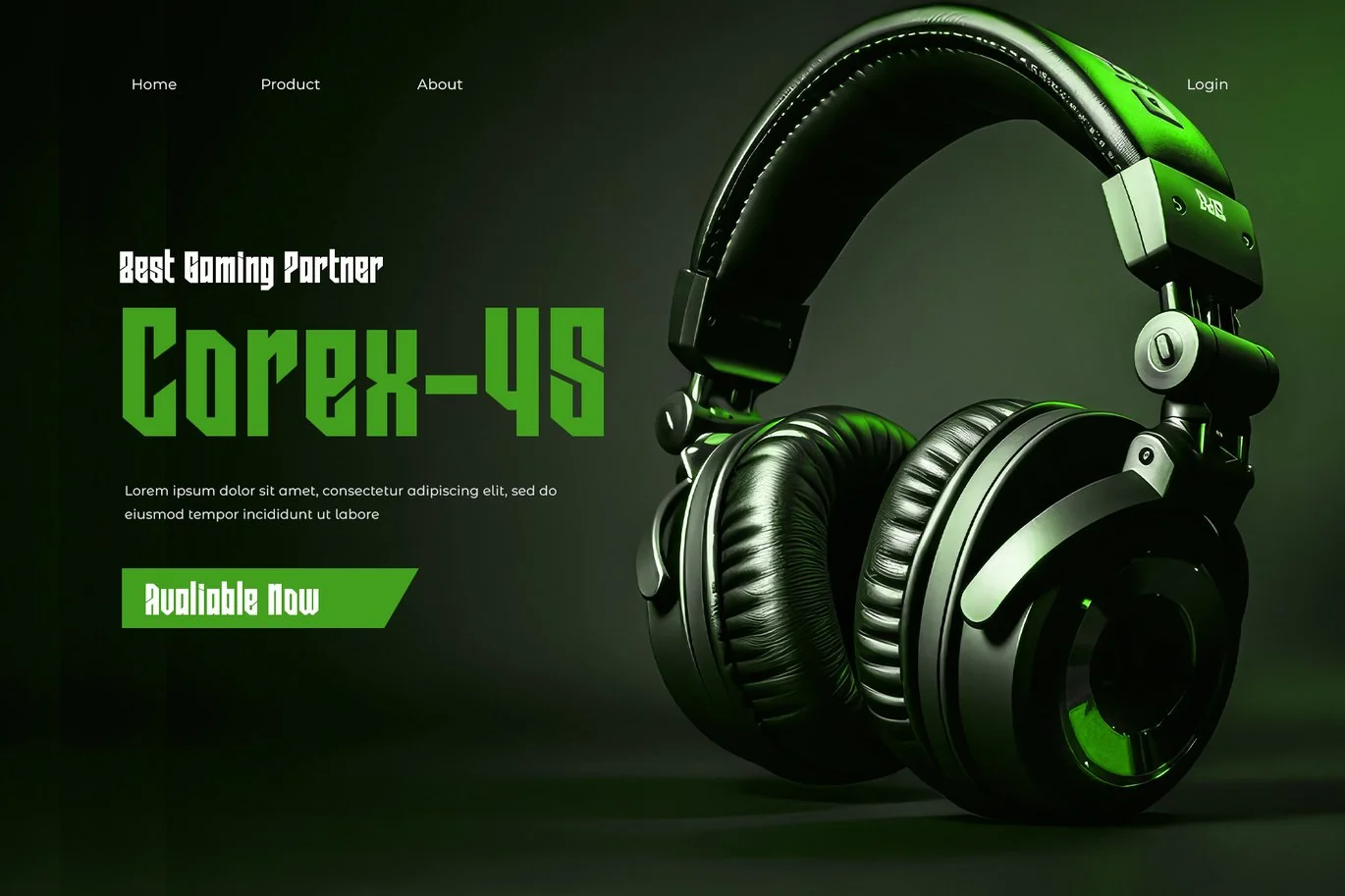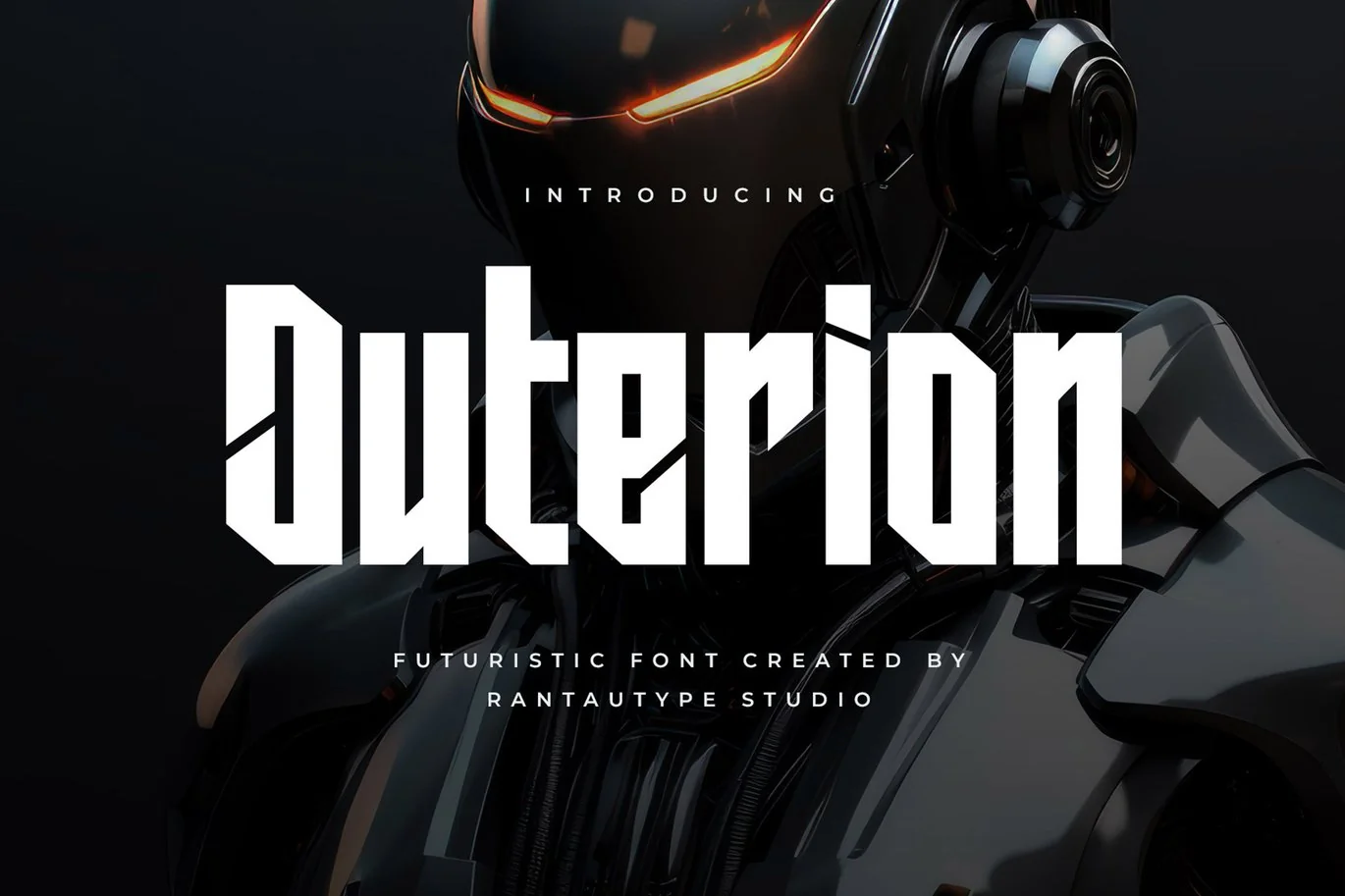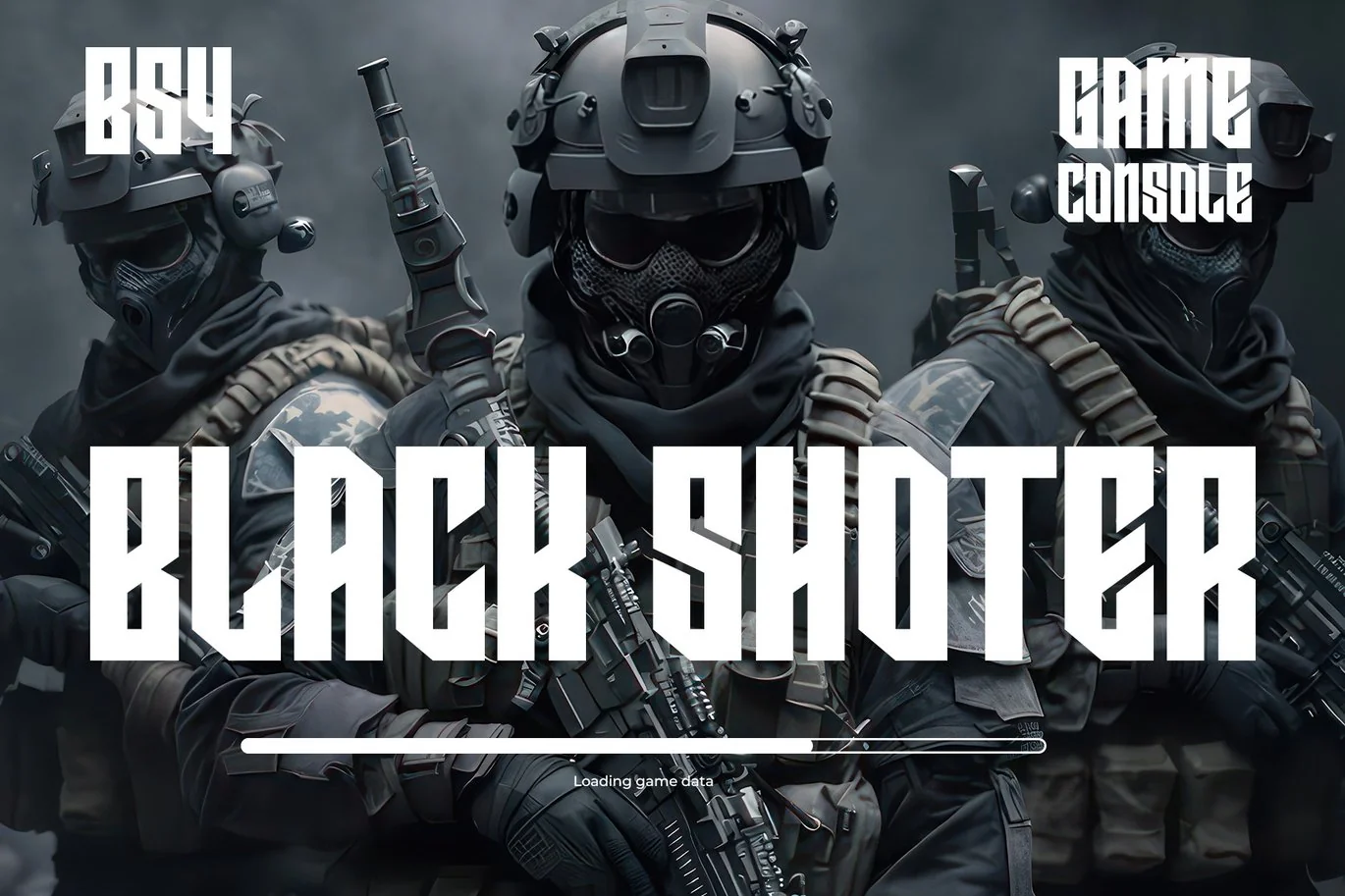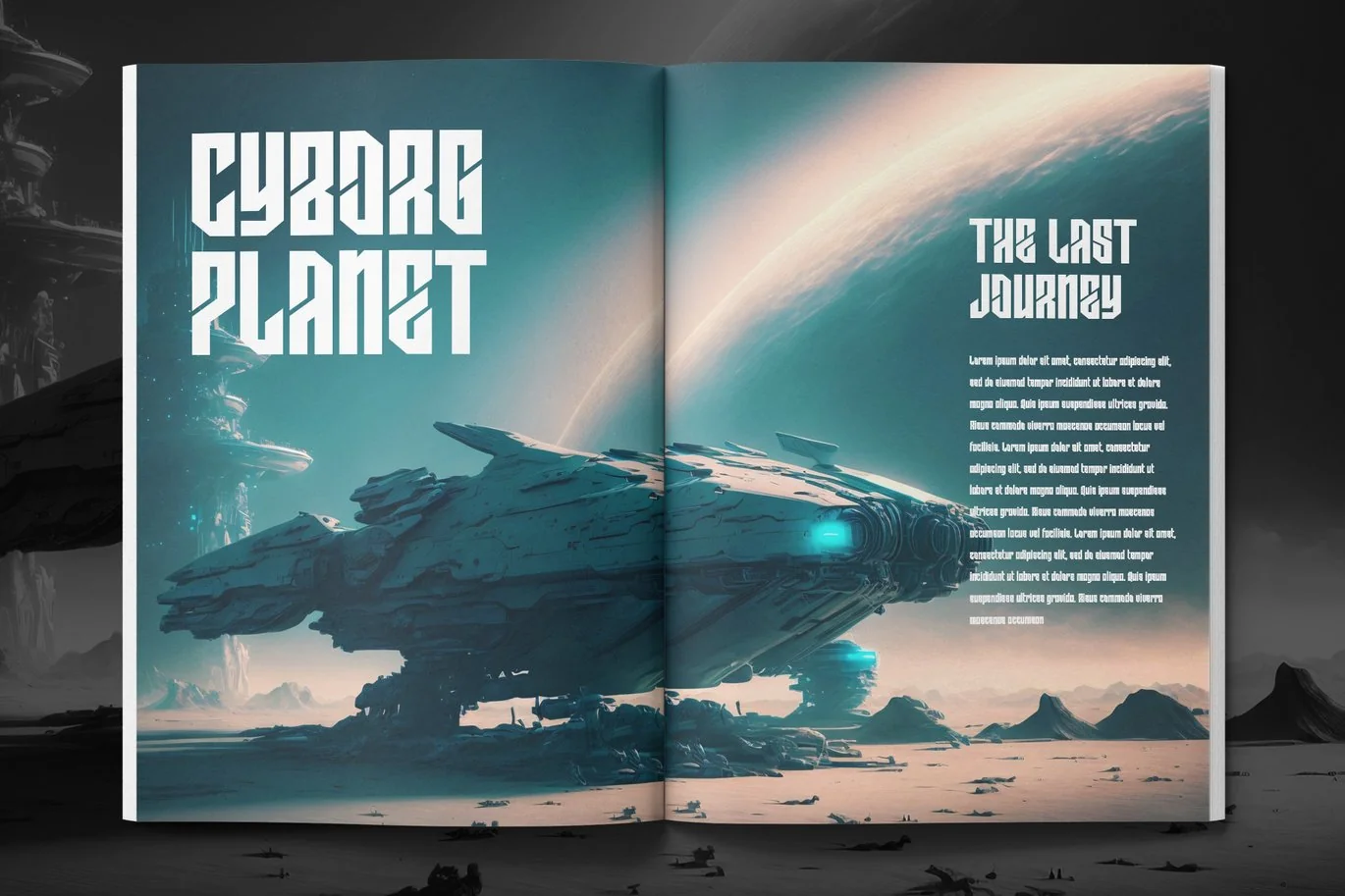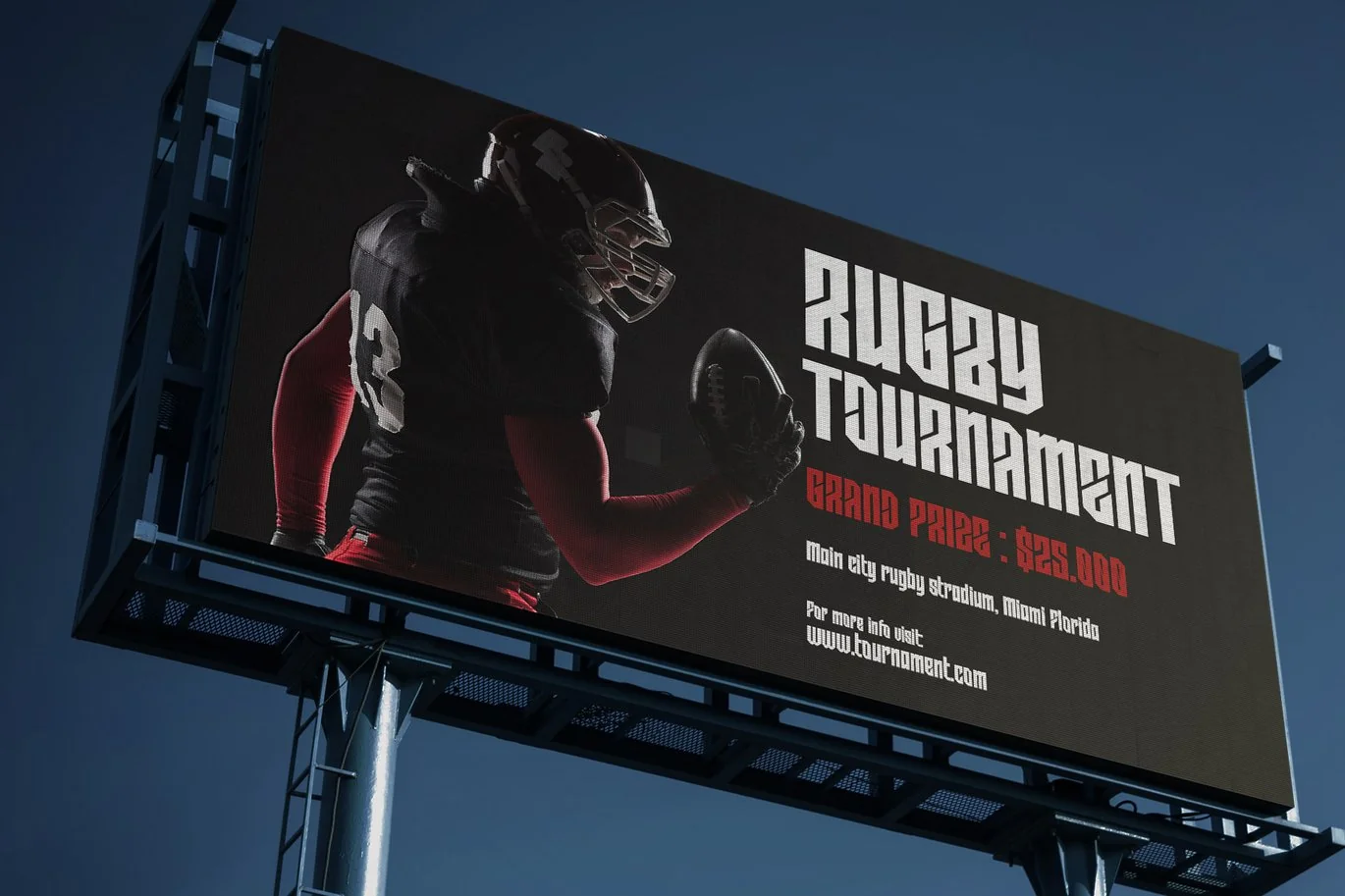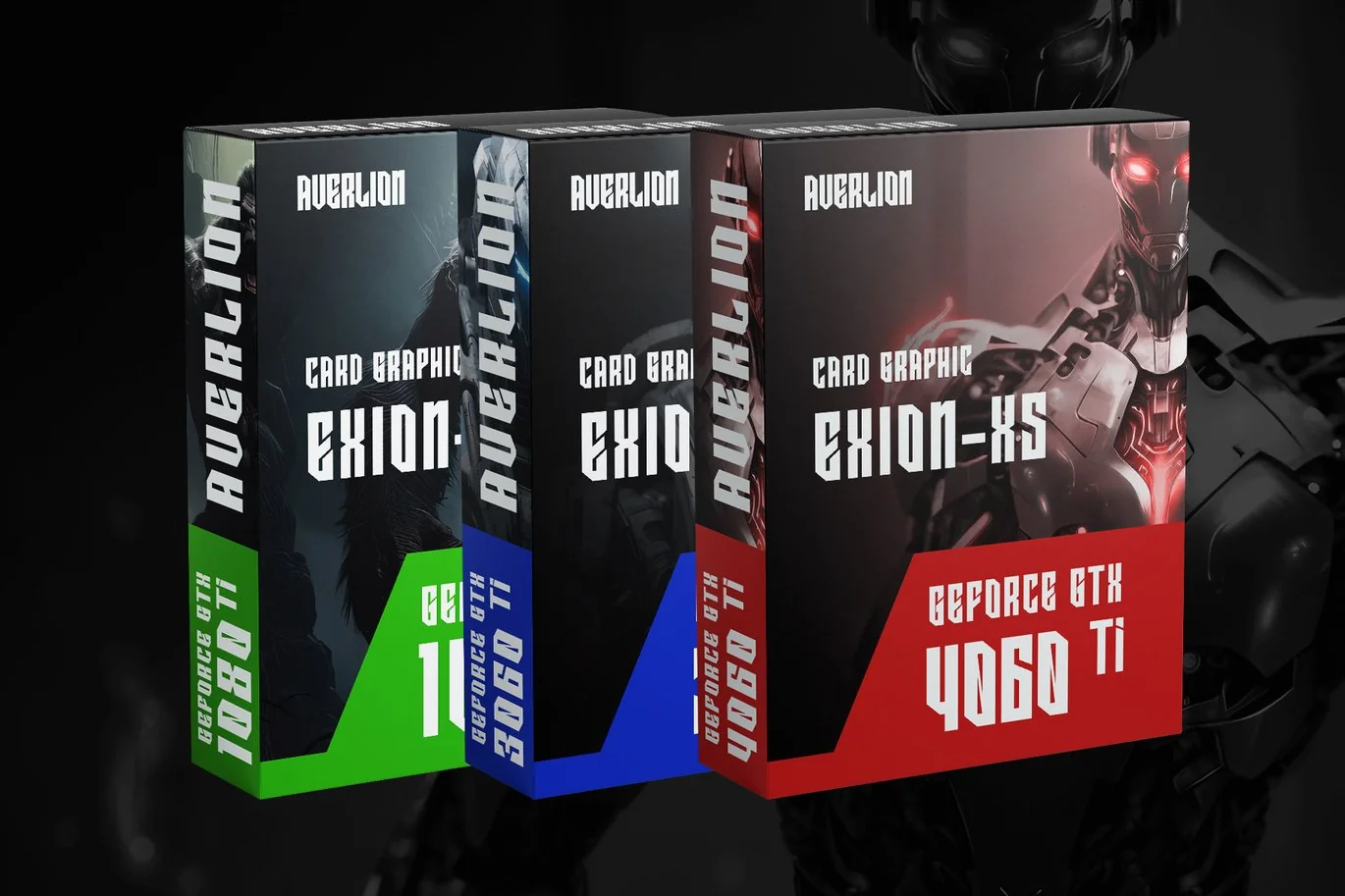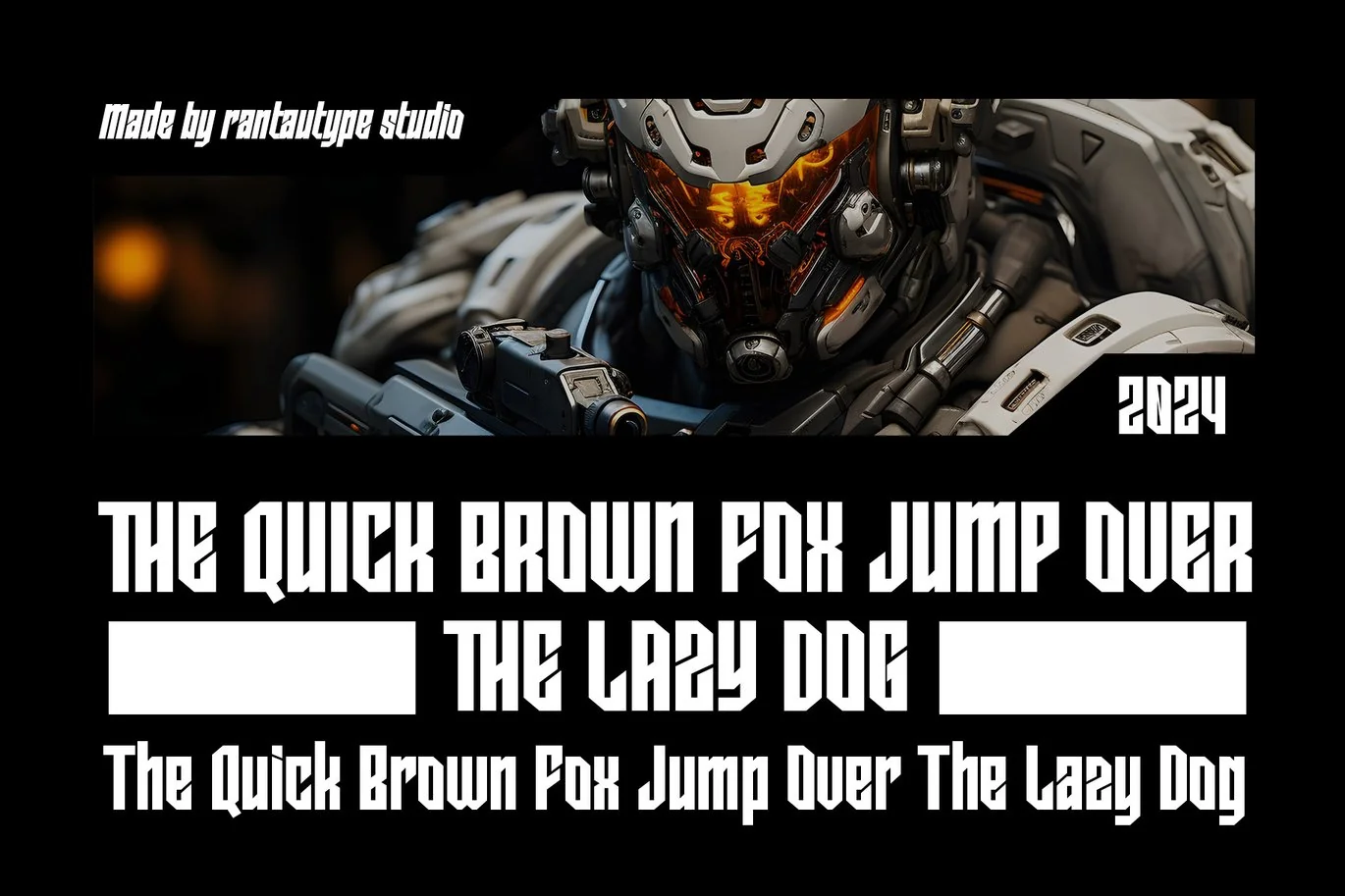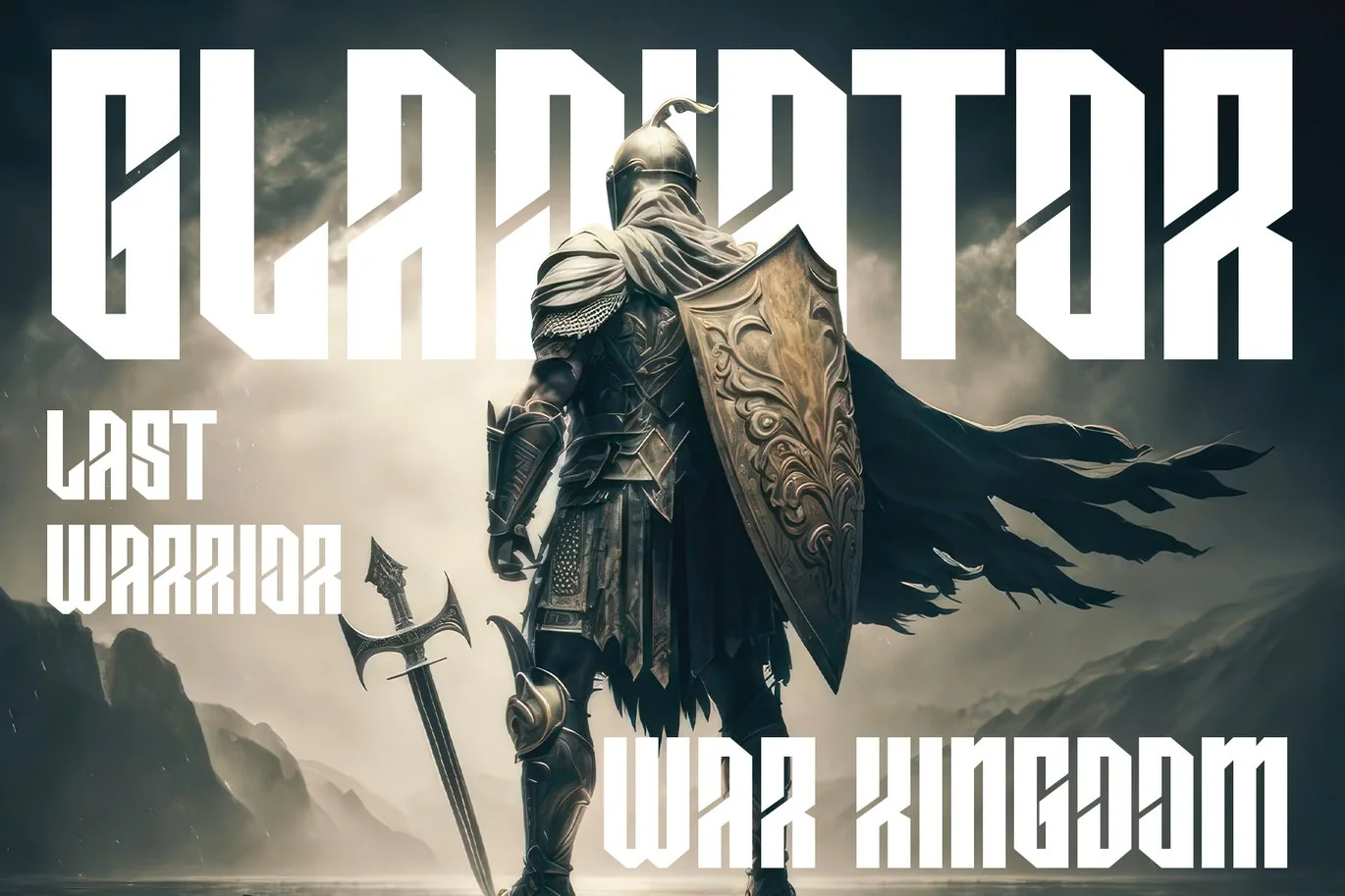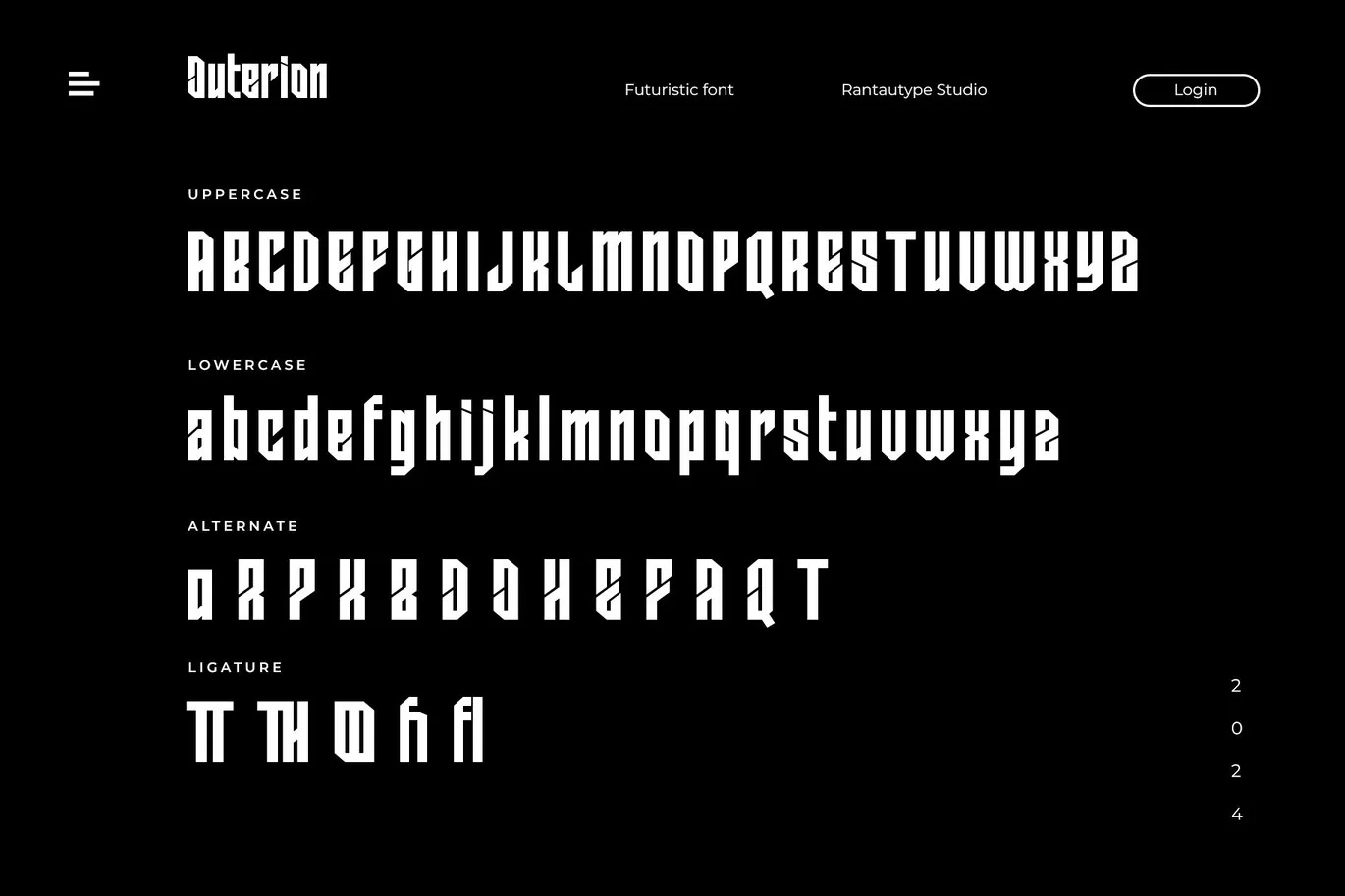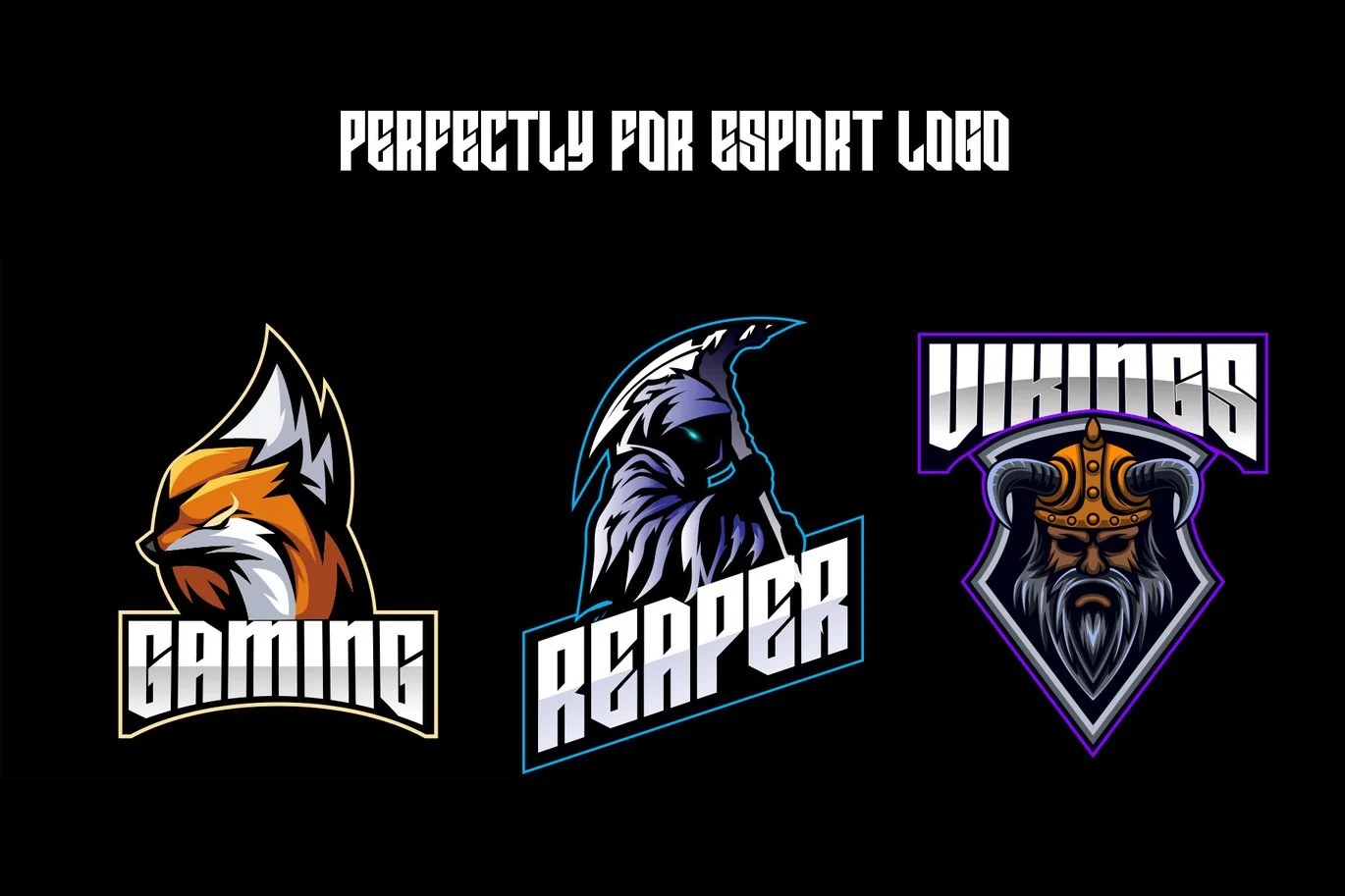
Outerion Futuristic Font
Outerion is futuristic font inspire from technology, game and sport. Outerion come with modern and sporty shape to make design project more stand out.
Outerion is a perfectly choice for any creative endeavor, chic, lifestyle design such as logos, advertisements, stationery, branding project, display and magazine, invitation, corporate brand, product design, label, business project and many other project with futuristic or sporty touch.